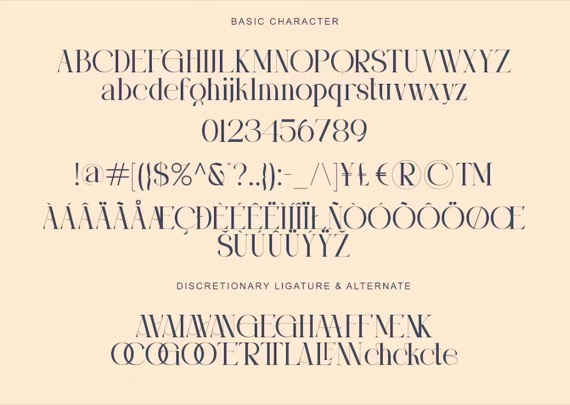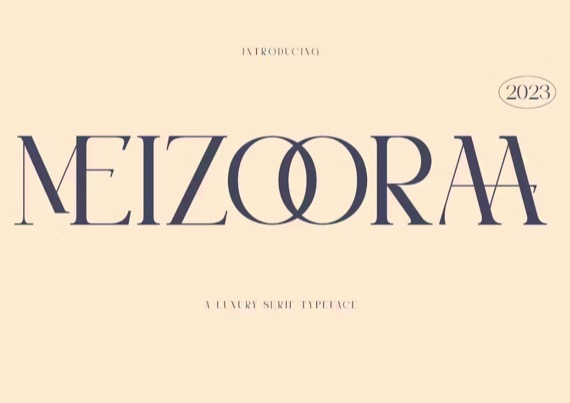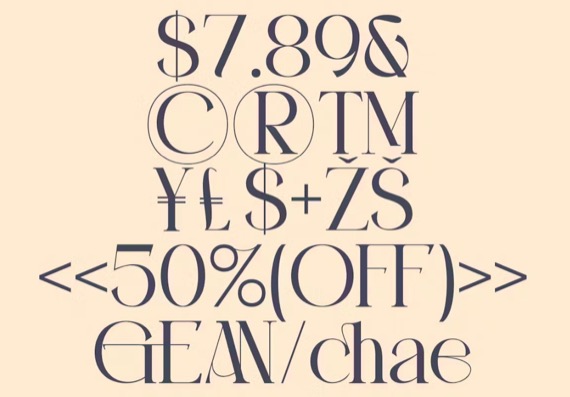
Meizooraa is a cool and modern Serif font that we recommend using in the following types of works: magazines (titles and layouts), Logos and brands, invitations, quotes, blog headers, posters, advertisements and body copy .
Meizoora Serif Font